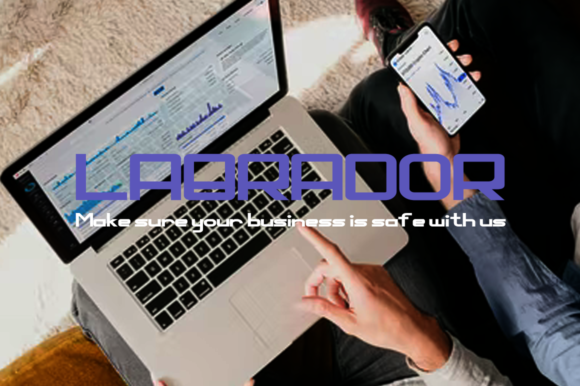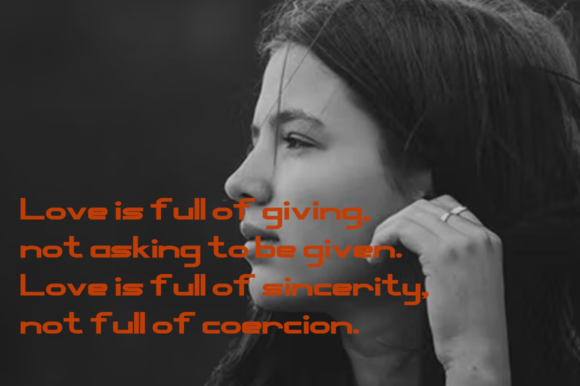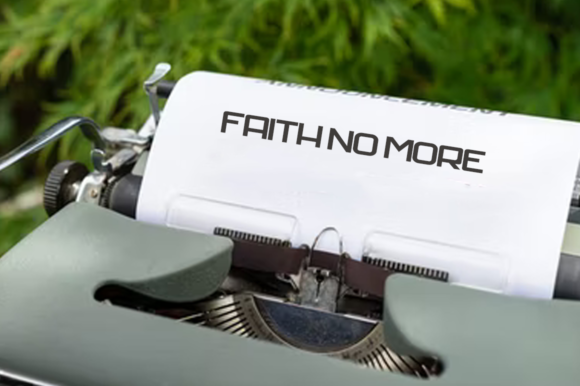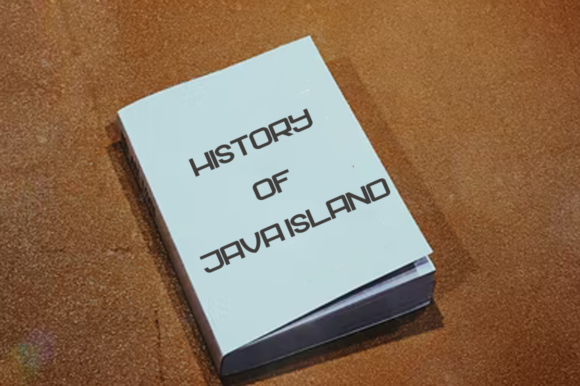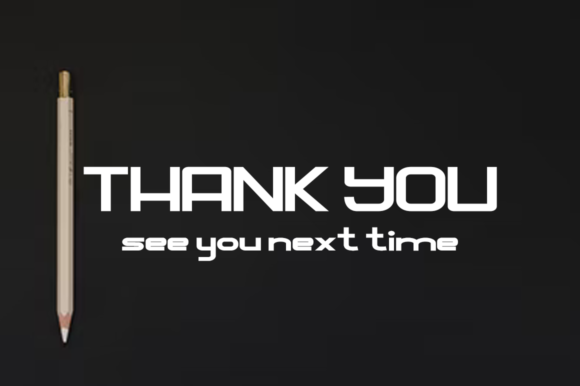
Introducing Ellonia Font: The Ultimate Display Font for Creative Projects
Are you a designer or crafter looking for a unique and stylish font to elevate your creative projects? Look no further than Ellonia Font, a cool and squared lettered display font that’s perfect for a variety of applications. In this article, we’ll explore the features and benefits of Ellonia Font, and show you how it can be used to add a touch of sophistication and style to your work.
What is Ellonia Font?
Ellonia Font is a modern and edgy display font that’s designed to make a statement. Its squared letters and clean lines give it a bold and futuristic look that’s perfect for product packaging, branding projects, magazine covers, social media, and more. Whether you’re looking to add a touch of industrial chic to your design or simply want to create a bold and eye-catching headline, Ellonia Font is the perfect choice.
Key Features of Ellonia Font
- Squared Letters: Ellonia Font features squared letters with clean lines and a bold appearance.
- Display Font: Designed specifically for display purposes, Ellonia Font is perfect for headlines, titles, and short phrases.
- Cool and Edgy: With its modern and industrial look, Ellonia Font adds a touch of sophistication and style to any design.
- Versatile: Use Ellonia Font for a variety of projects, from product packaging and branding to magazine covers and social media graphics.
Ellonia Font is perfect for a wide range of creative projects, including:
- Product Packaging: Add a touch of industrial chic to your product packaging with Ellonia Font.
- Branding Projects: Use Ellonia Font to create bold and eye-catching logos and branding materials.
- Magazine Covers: Make your magazine cover stand out with Ellonia Font’s bold and attention-grabbing design.
- Social Media: Use Ellonia Font to create eye-catching social media graphics and posts.
- Wedding: Add a touch of modern elegance to your wedding invitations and decor with Ellonia Font.
Why Choose Ellonia Font?
With so many fonts to choose from, why should you choose Ellonia Font? Here are just a few reasons:
- Unique and Stylish: Ellonia Font is a one-of-a-kind font that’s sure to make your design stand out.
- Easy to Read: Despite its bold and edgy design, Ellonia Font is easy to read and understand.
- Versatile: Use Ellonia Font for a wide range of projects and applications.
- High-Quality: Ellonia Font is a high-quality font that’s designed to look great in any design.
Tips for Using Ellonia Font
Here are a few tips for using Ellonia Font in your designs:
- Use it Sparingly: Ellonia Font is a bold and attention-grabbing font, so use it sparingly to avoid overwhelming your design.
- Pair it with Other Fonts: Pair Ellonia Font with other fonts to create a unique and interesting contrast.
- Experiment with Colors: Try out different colors and textures to see how they affect the look and feel of Ellonia Font.
Ellonia Font is a cool and squared lettered display font that’s perfect for a wide range of creative projects. With its modern and industrial look, Ellonia Font adds a touch of sophistication and style to any design. Whether you’re a designer or crafter, Ellonia Font is a great choice for anyone looking to create bold and eye-catching designs. So why wait? Download Ellonia Font today and start creating amazing designs!